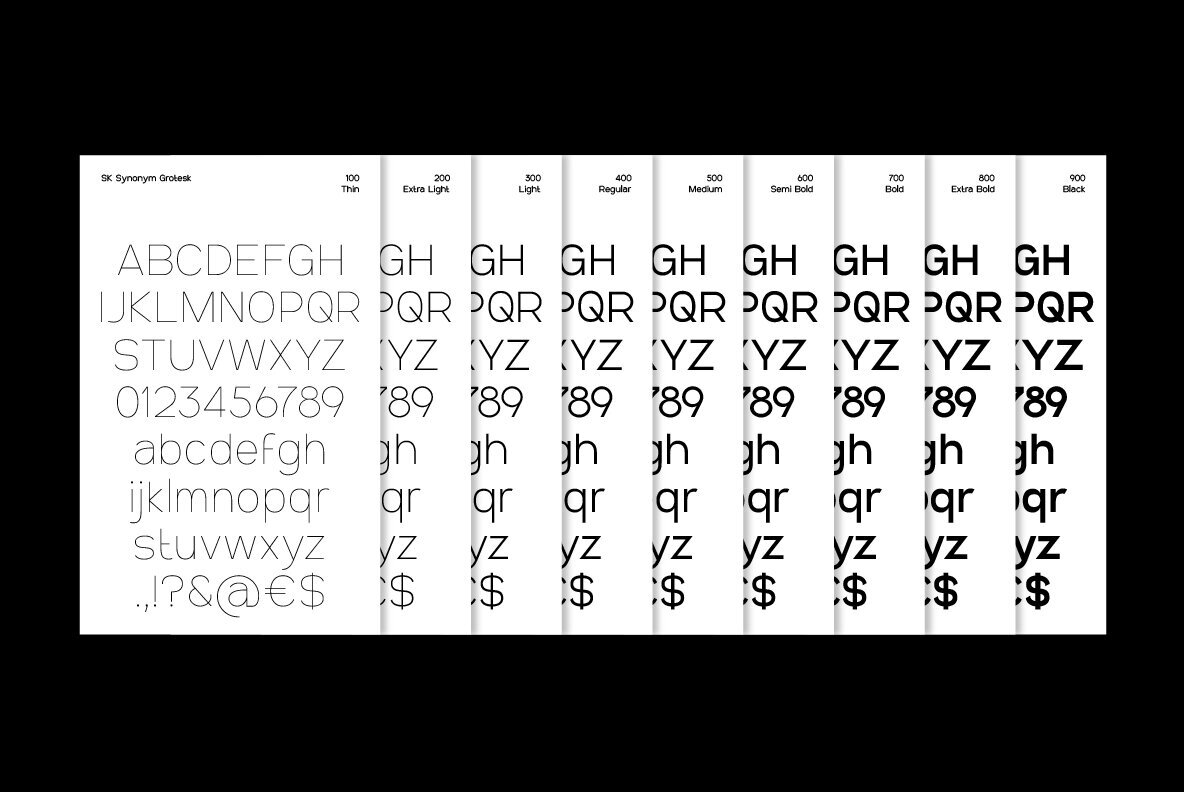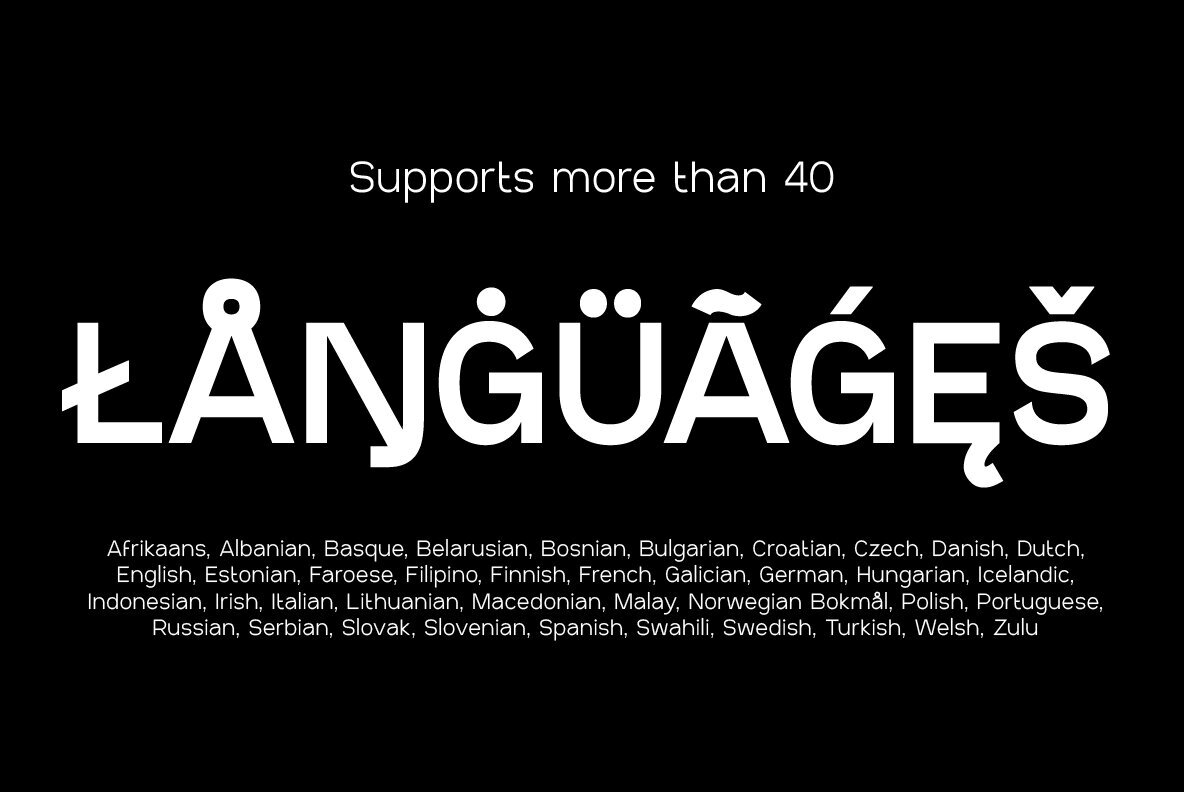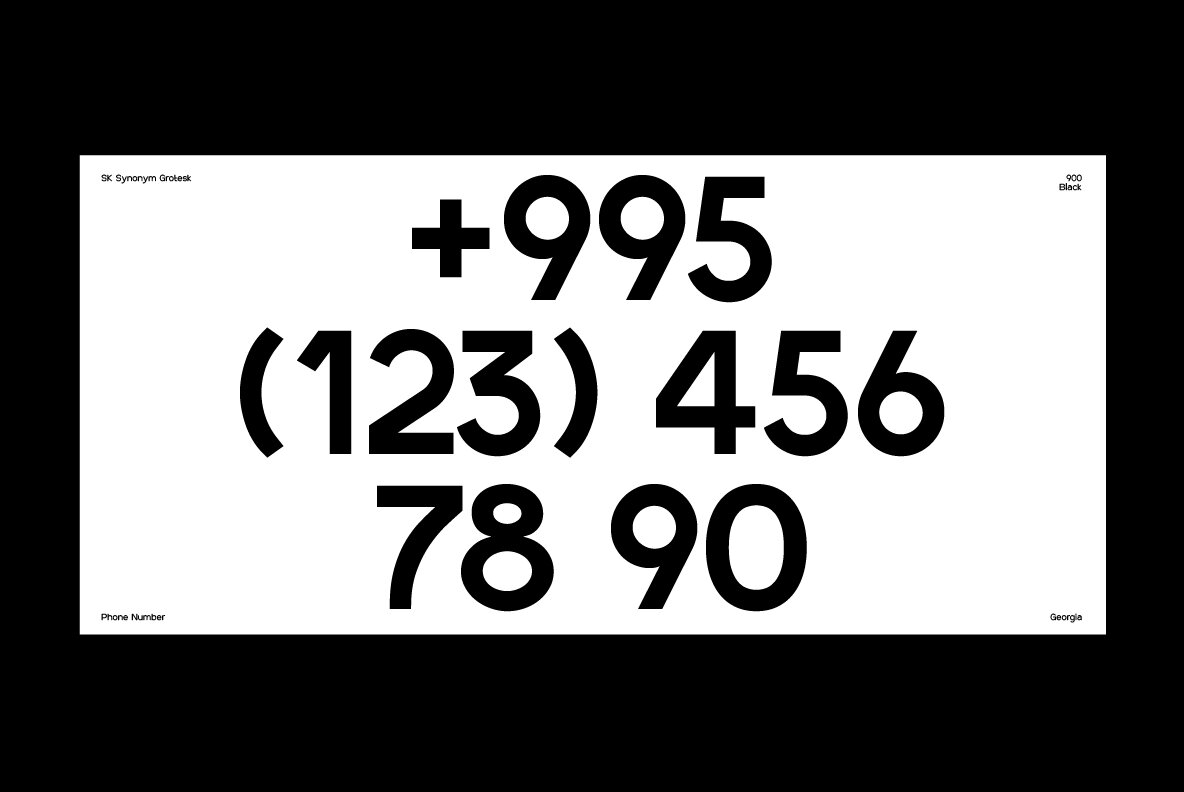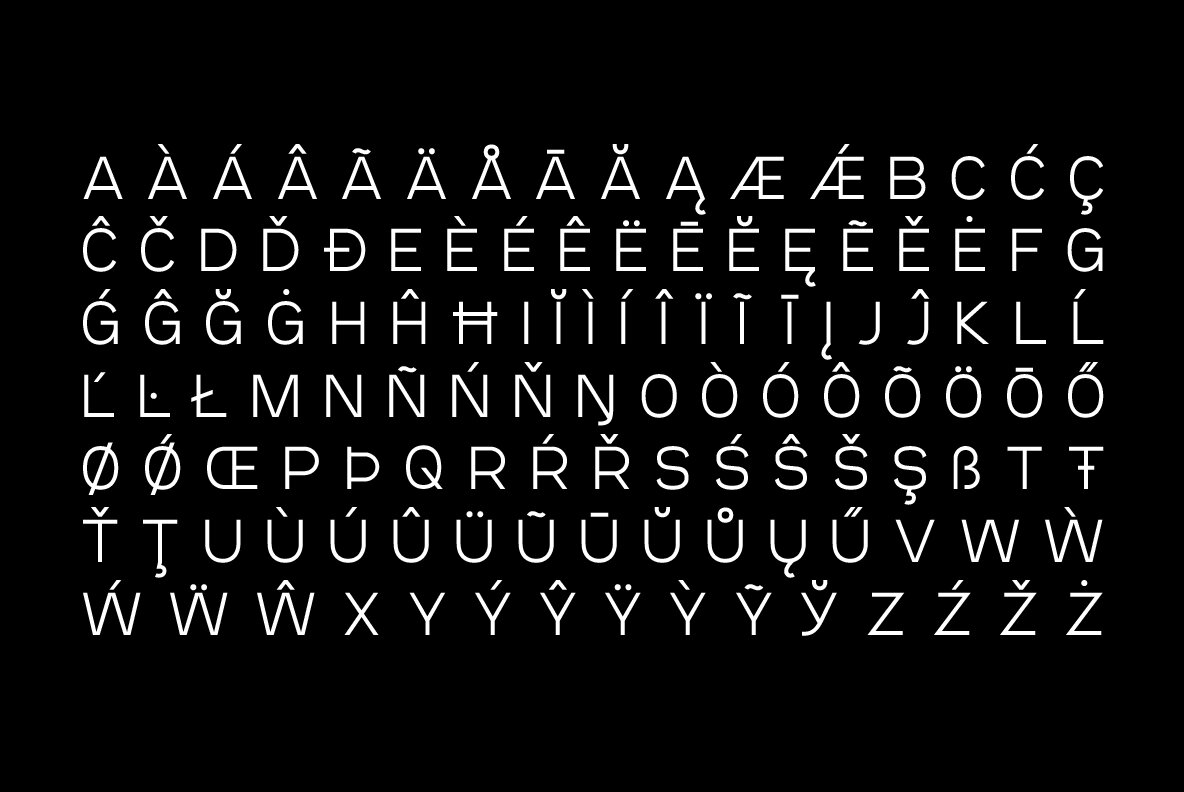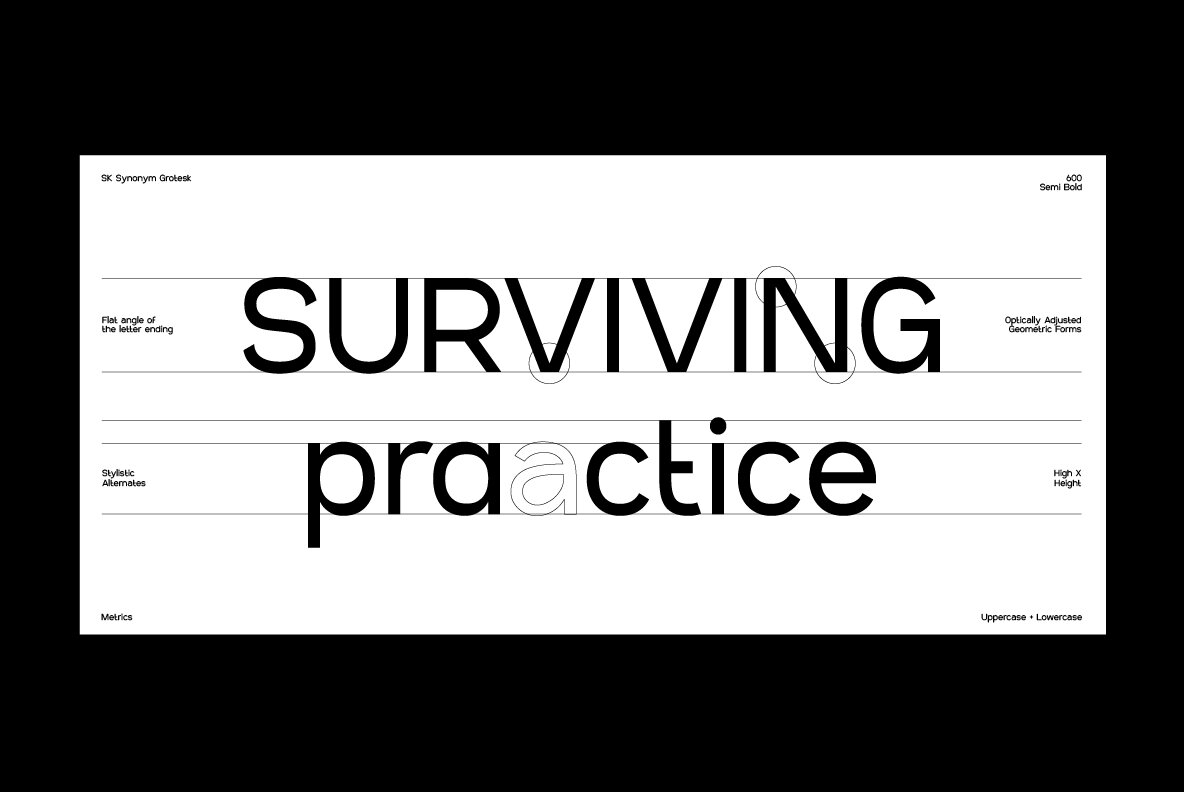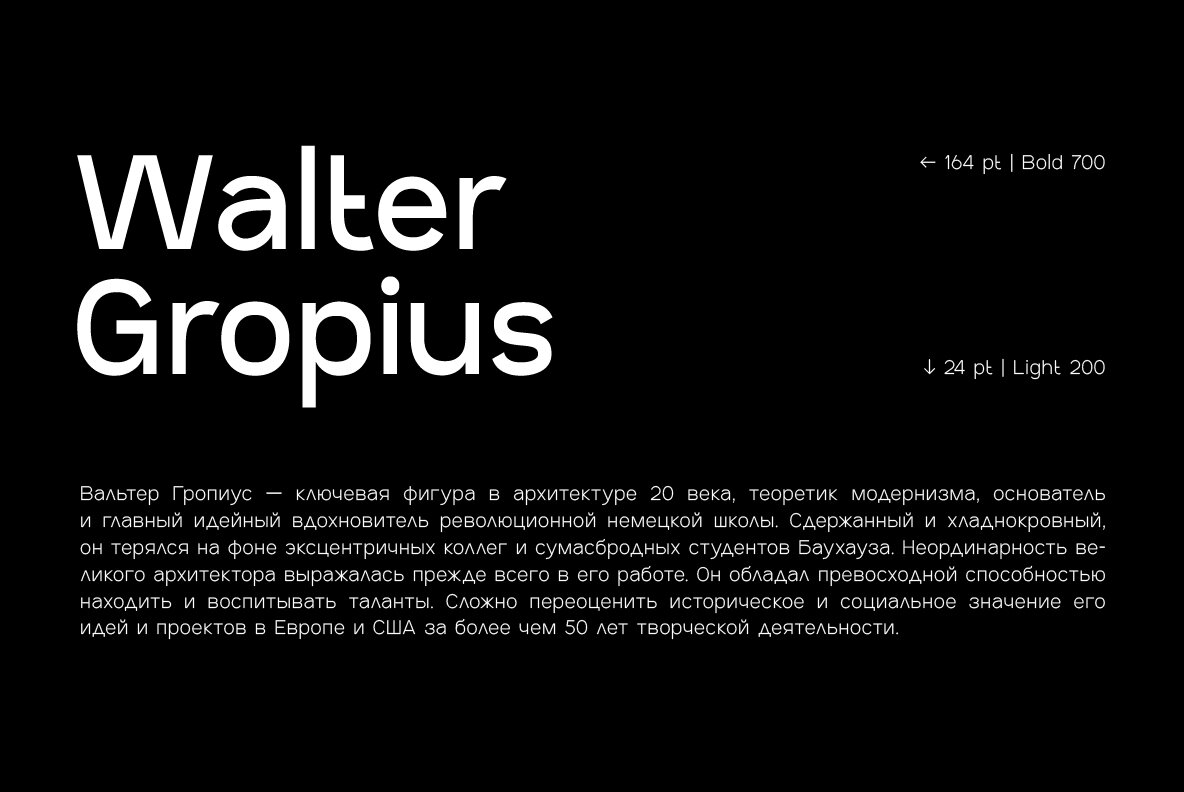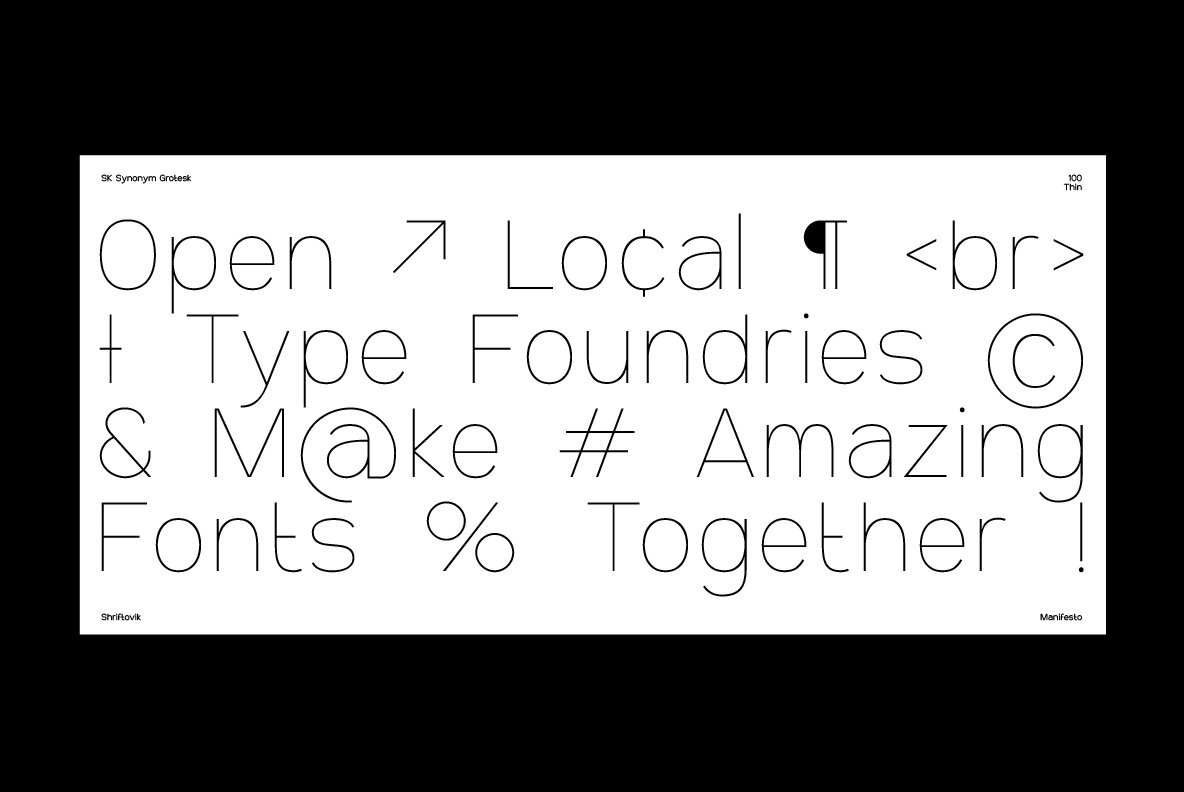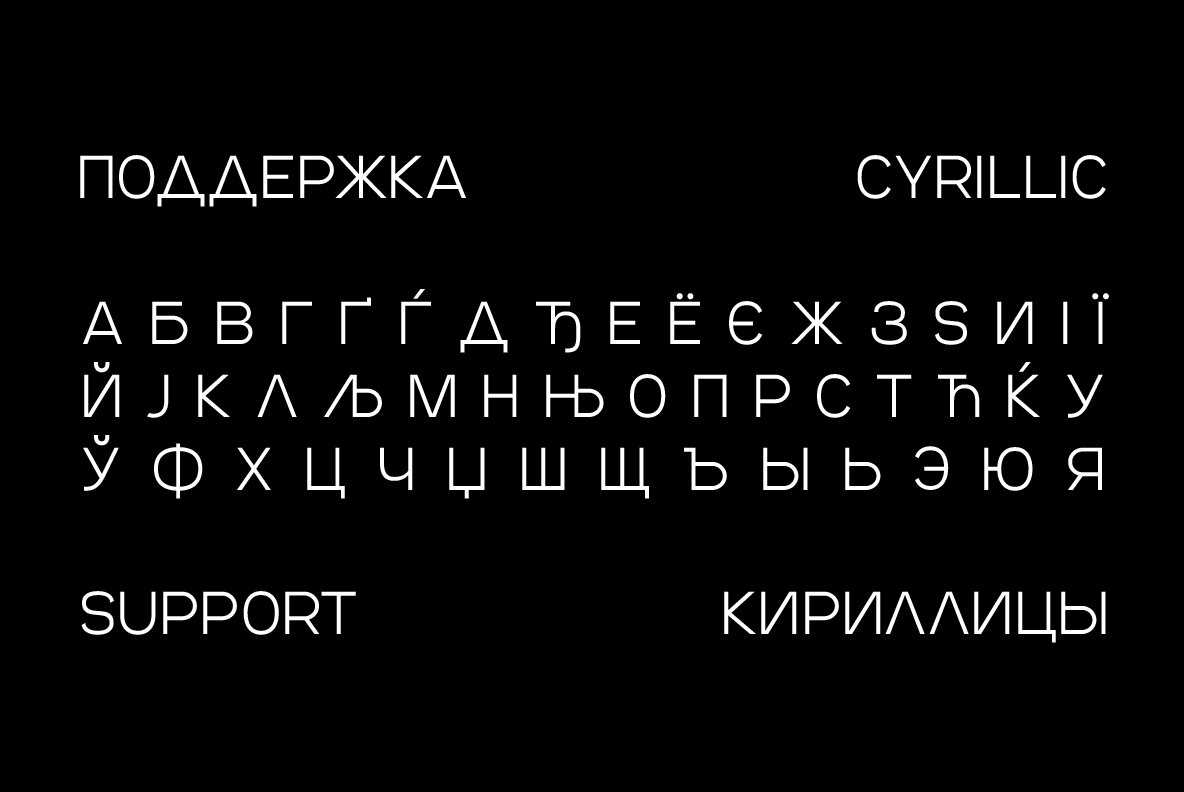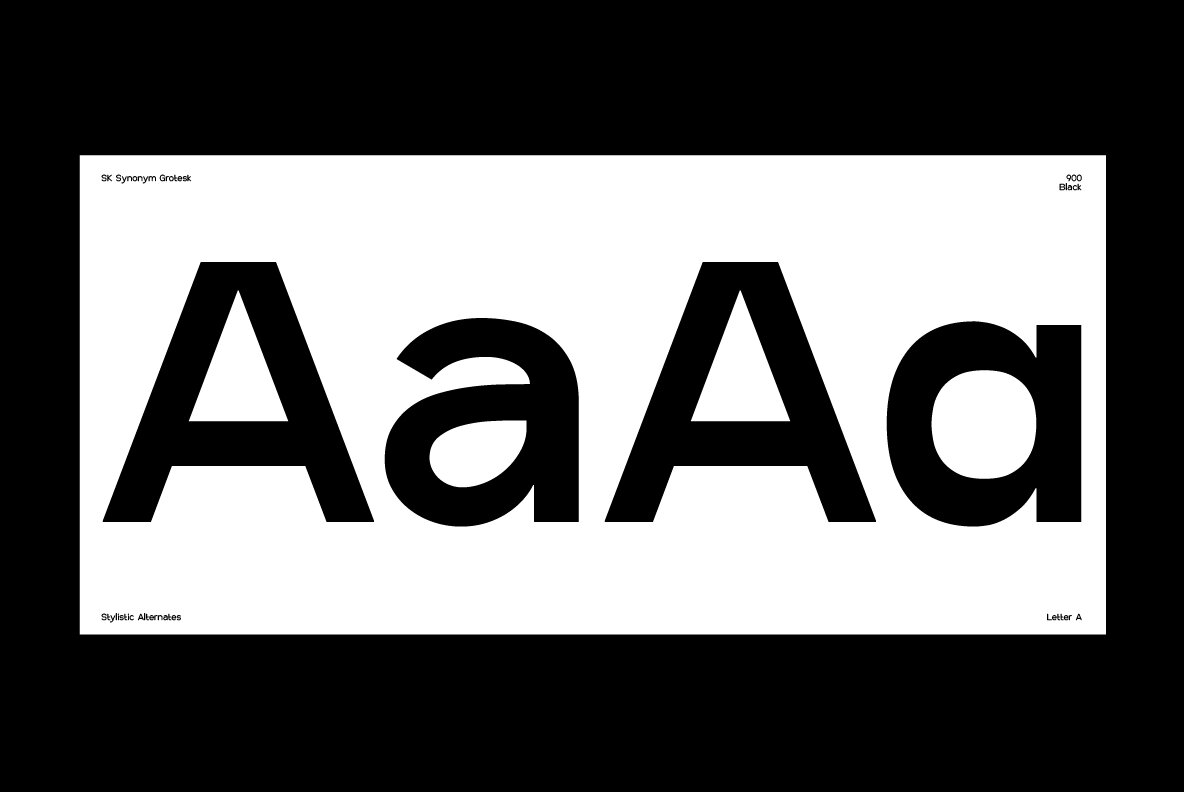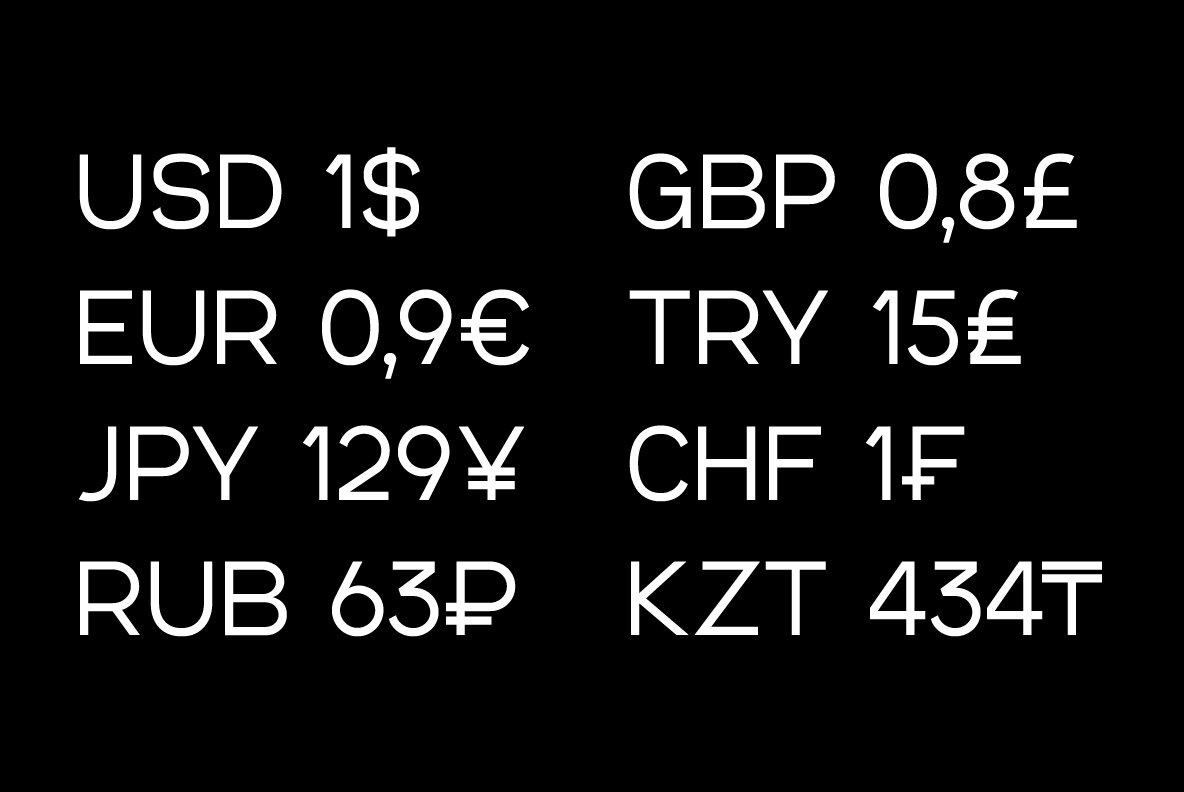
SK Synonym Grotesk Font
SK Synonym Grotesk is a geometric neo-grotesk typeface, which was developed under the influence of Swiss type design and adapt to modern realities. Its sturdy and simple structure is characterized by angular joints that accent details of the letters. The font design uses a strict geometric and stable construction it’s combining with organic and lively forms, it creates an unusual attractive aesthetic of the character set.
SK Synonym Grotesk consists of a variety of tools for various design needs, including OpenType alternatives and a wide range of styles from Thin to Black. This typeface is multilingual, supports more than 40 languages including Extended Latin and Cyrillic sets and contains more than 450 characters.